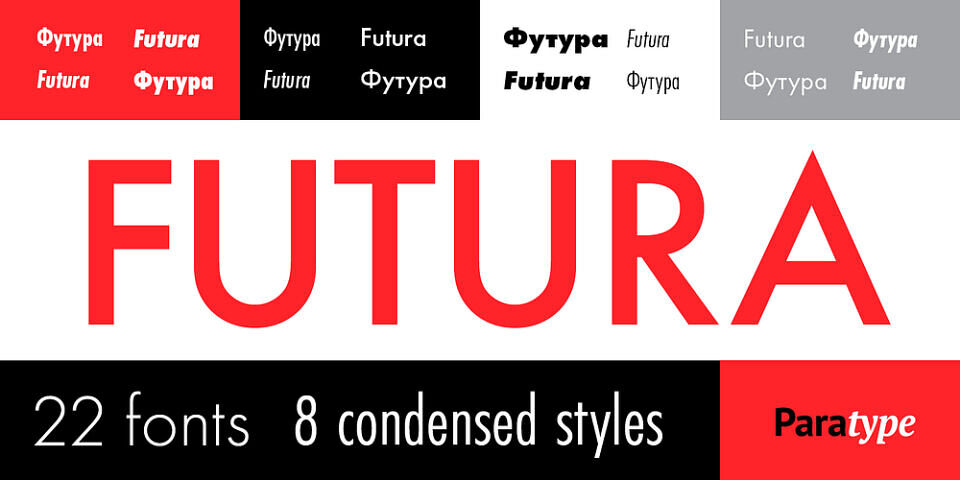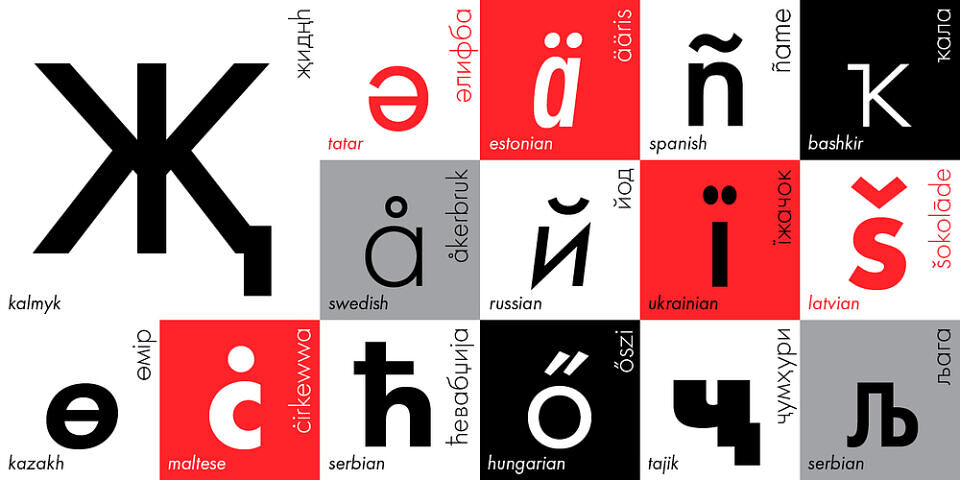
Futura PT Font
Futura is a timeless geometric sans-serif, recognized as one of the most influential typefaces of the 20th century. Its enduring relevance is evident in its widespread use across logos, headings, web design, and print media.
Originally designed by Paul Renner for Bauersche Gießerei (Bauer) in 1927, Futura is characterized by its simple geometric forms, reflecting the aesthetics of 1920s-30s constructivism and the Bauhaus movement.
Futura PT stands as the most comprehensive Cyrillic version available, offering a versatile system of 25 styles ranging from Thin to Extrabold, including 16 Regular and 9 Condensed variations. It features both linear and old-style figures, subscripts, and fractions, supporting over 100 languages, including Western and Central European Latin and Cyrillic scripts.
Futura PT Font Family was designed by Vladimir Yefimov, Paul Renner, Isabella Chaeva and published by ParaType.